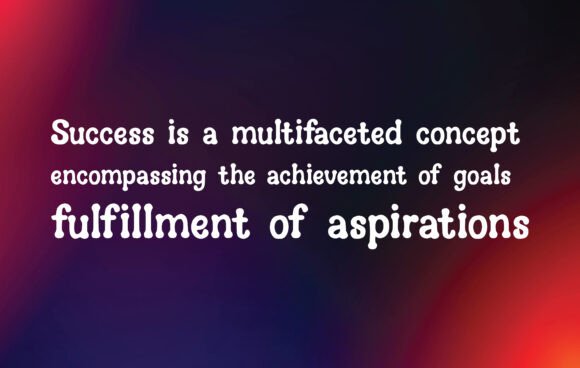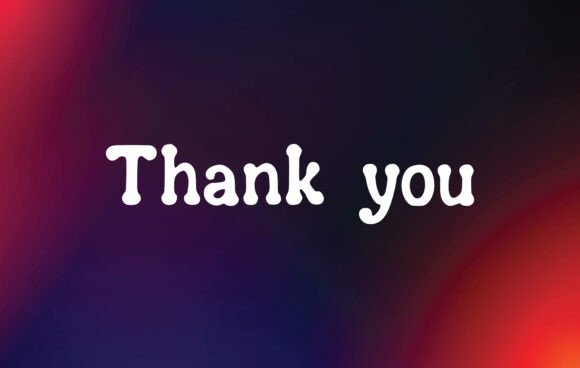
Discover the Versatility of Cathy Font: Your New Go-To for Creative Projects
I’ll never forget the time I was working on a magazine cover design, and I just couldn’t find the right font to make it pop. My client was specific about the style they wanted – something that was both eye-catching and easy to read. After hours of scrolling through font libraries, I stumbled upon Cathy Font, and it was love at first sight! ✨ In this article, I’ll share my experience with this amazing font, its features, and how you can make the most of it in your creative projects.
An Honest Review of Cathy Font
• ✅ Versatility: Cathy Font is designed to be a go-to favorite for any creative project. Its clear and easy-to-read style makes it perfect for both titles and body text.
• ✅ Eye-catching: This font has a unique personality that adds a touch of style to any design, whether it’s a magazine cover, t-shirt, or social media post.
• ✅ Easy to Read: The font’s clarity makes it ideal for body text, ensuring your readers stay engaged and focused.
While Cathy Font is an excellent choice for many projects, there are a few things to keep in mind: ⚠️
• 🤔 Limited use in very small sizes: While it’s clear and easy to read, using Cathy Font in very small sizes (e.g., 8-10pt) might not be the best choice. It’s ideal for larger sizes where its unique personality can shine.
• 🤔 Pairing with other fonts: As with any font, pairing Cathy Font with other fonts requires some thought. You may need to experiment with different combinations to find the perfect match for your design.
The Backstory of Cathy Font
Cathy Font was designed with the creative hobbyist in mind. Its creator wanted to craft a font that was both versatile and eye-catching, perfect for a wide range of projects. The font’s unique personality is inspired by classic typography with a modern twist.
Q: What makes Cathy Font so versatile?
A: Cathy Font is designed to be clear and easy to read, making it perfect for both titles and body text. Its unique personality adds a touch of style to any design.
Q: Is Cathy Font suitable for digital designs?
A: Absolutely! Cathy Font is optimized for both print and digital designs. Its clarity and readability make it perfect for social media posts, website headers, and more.